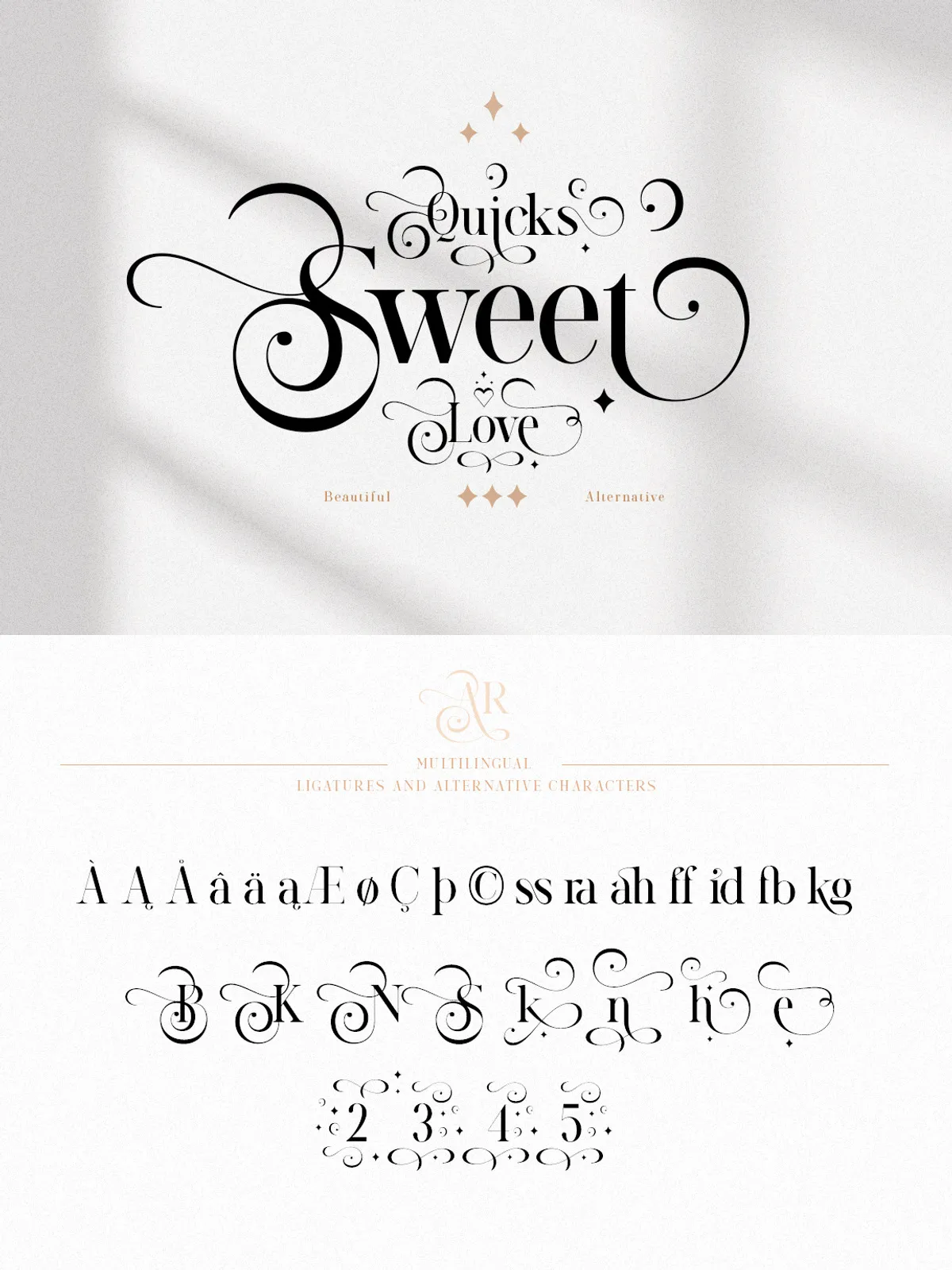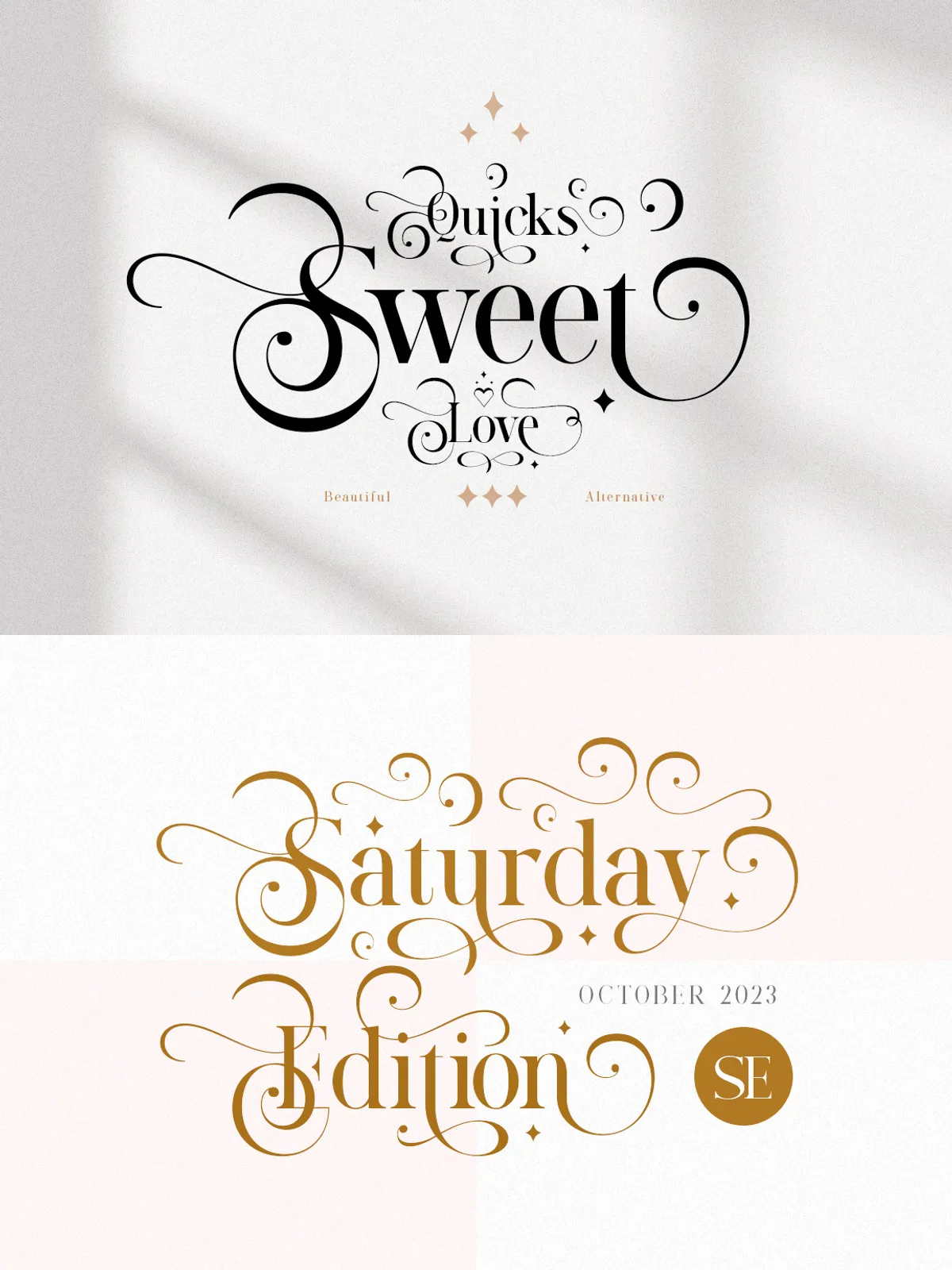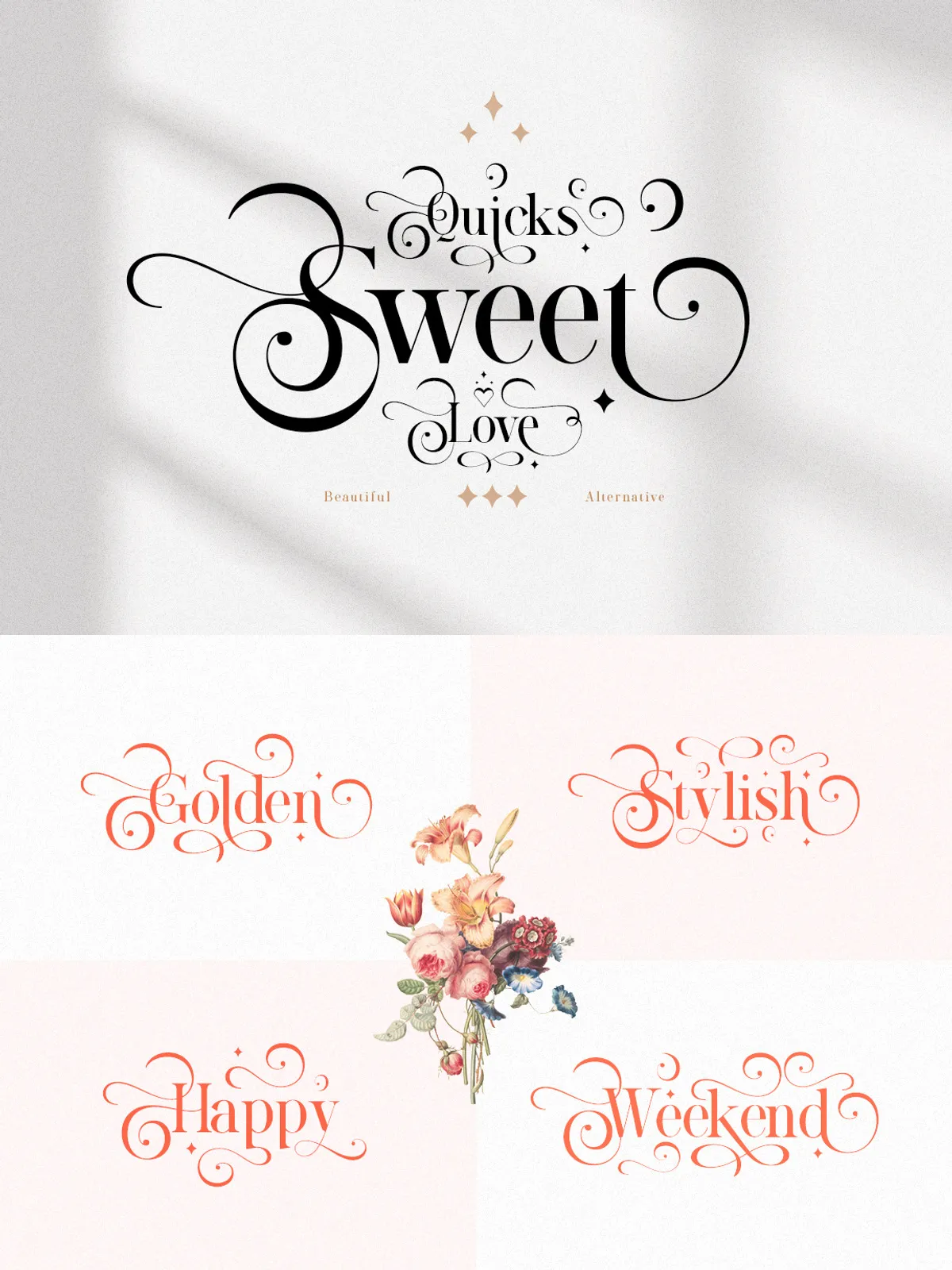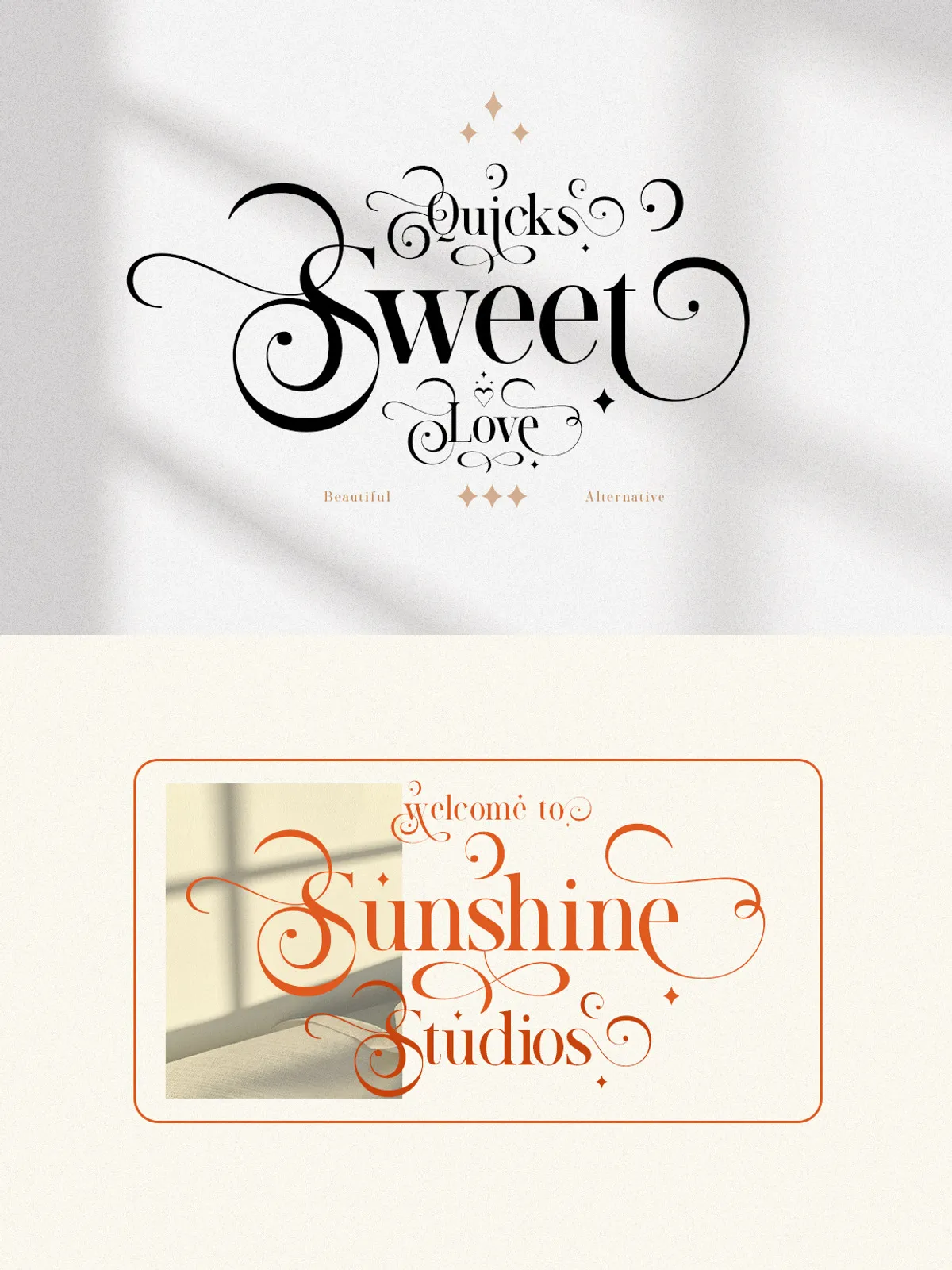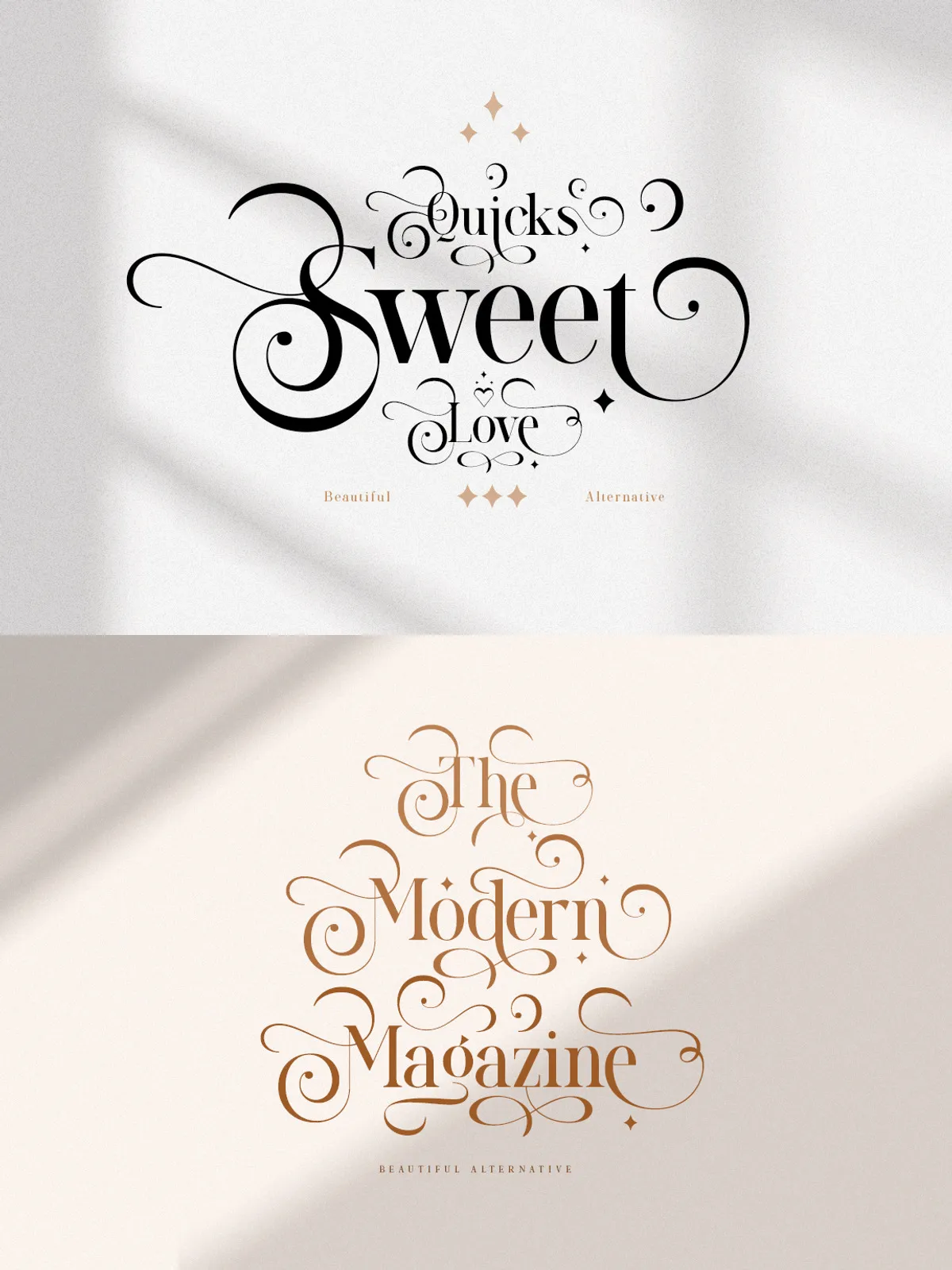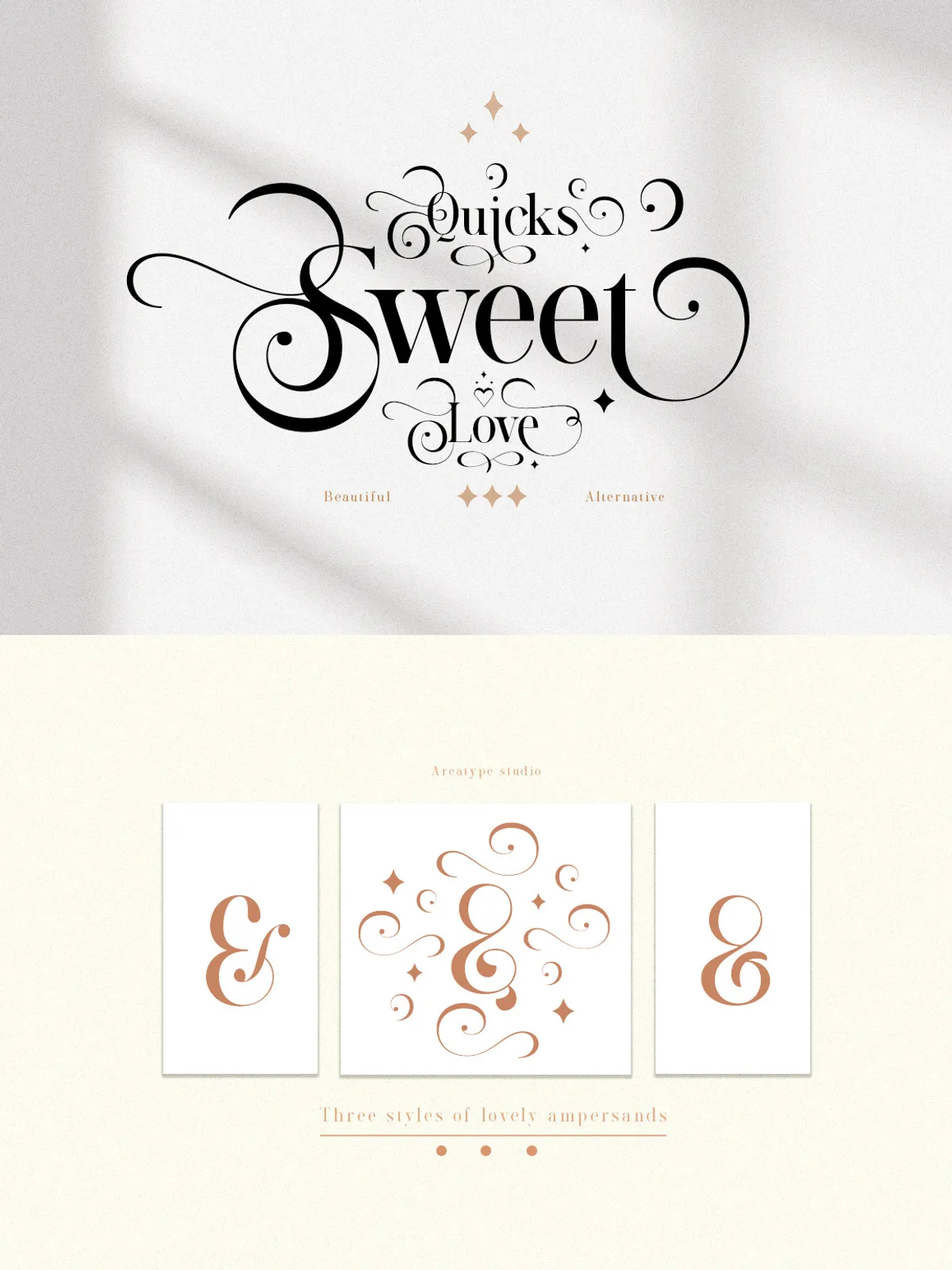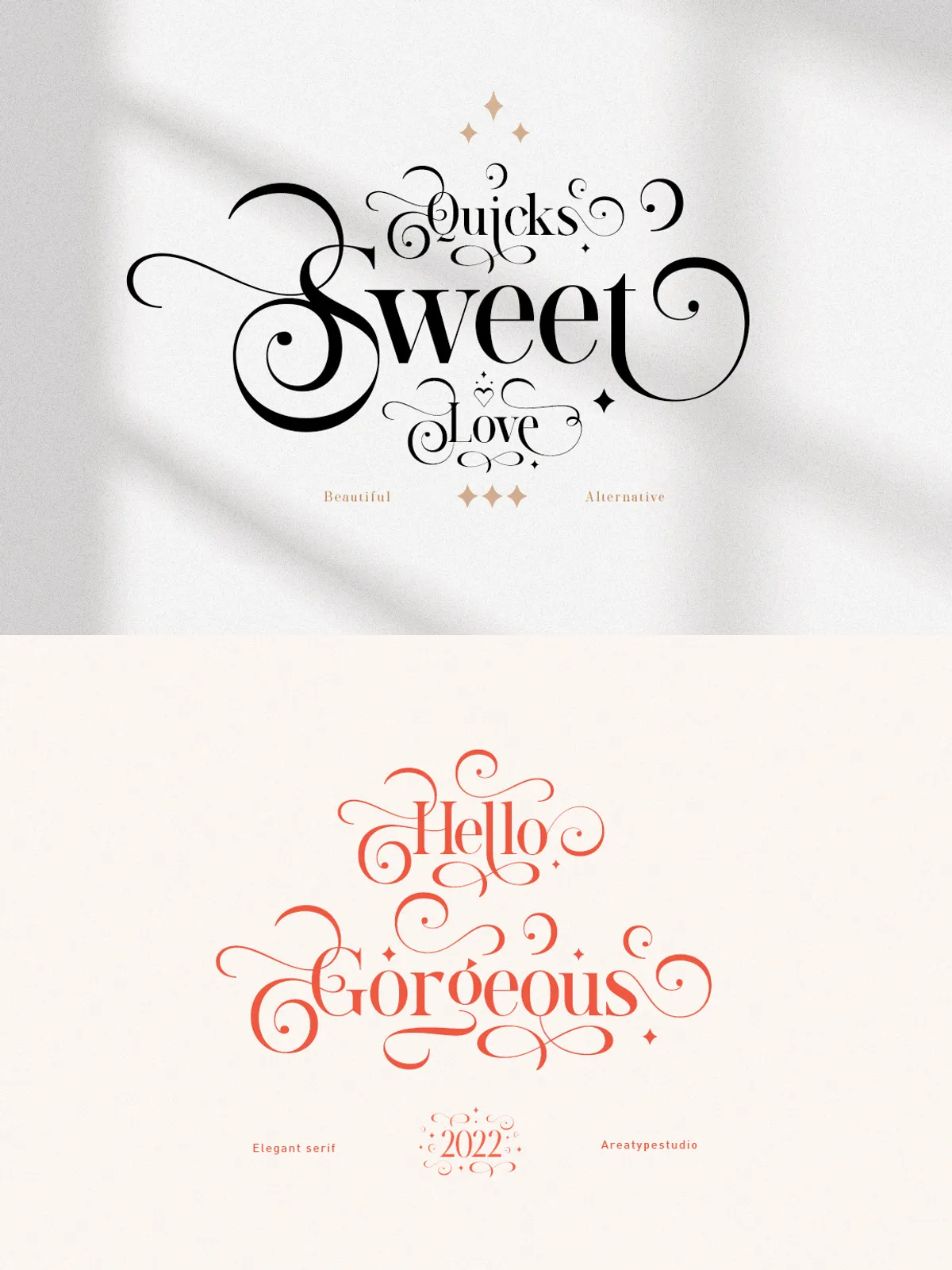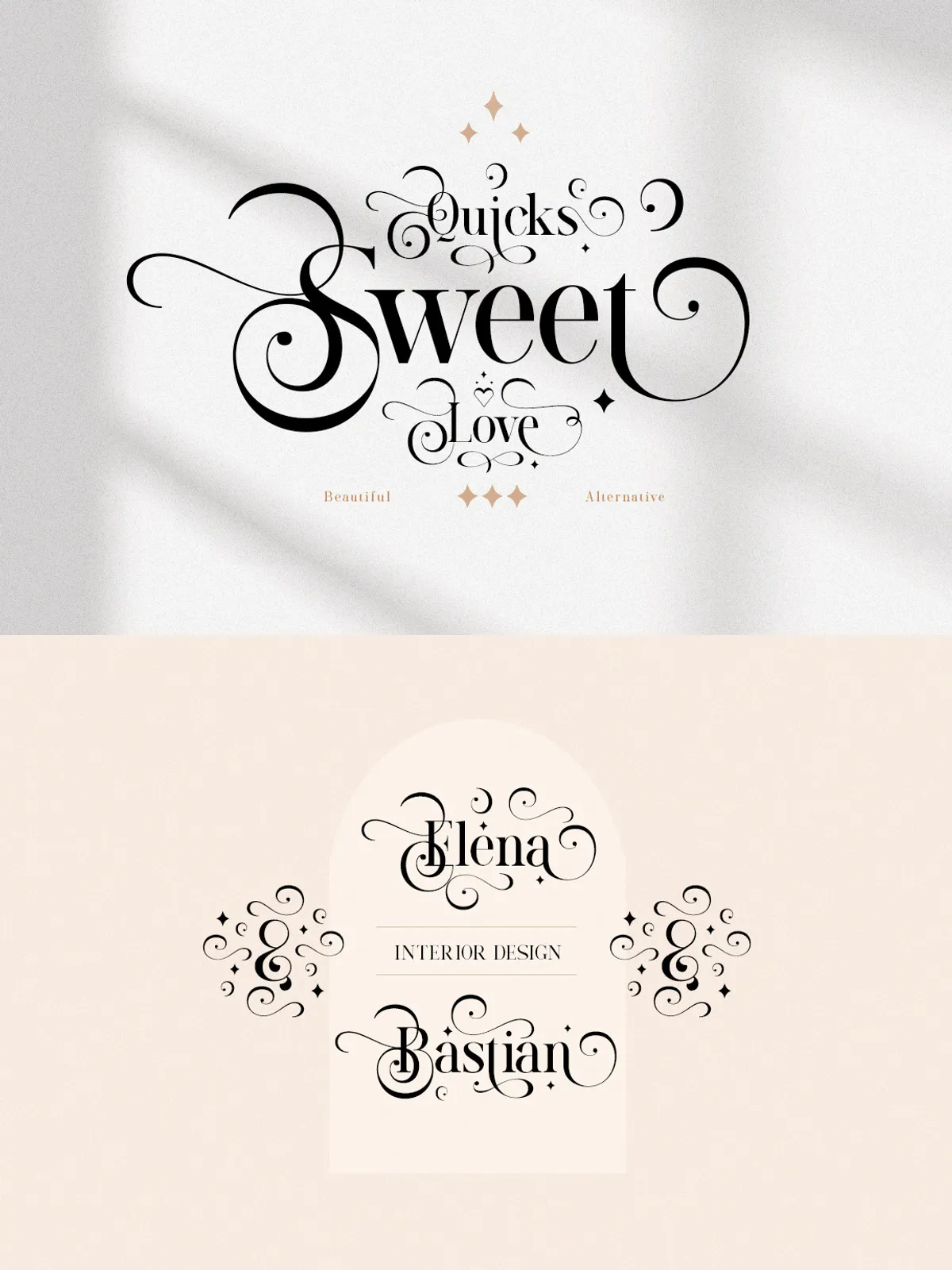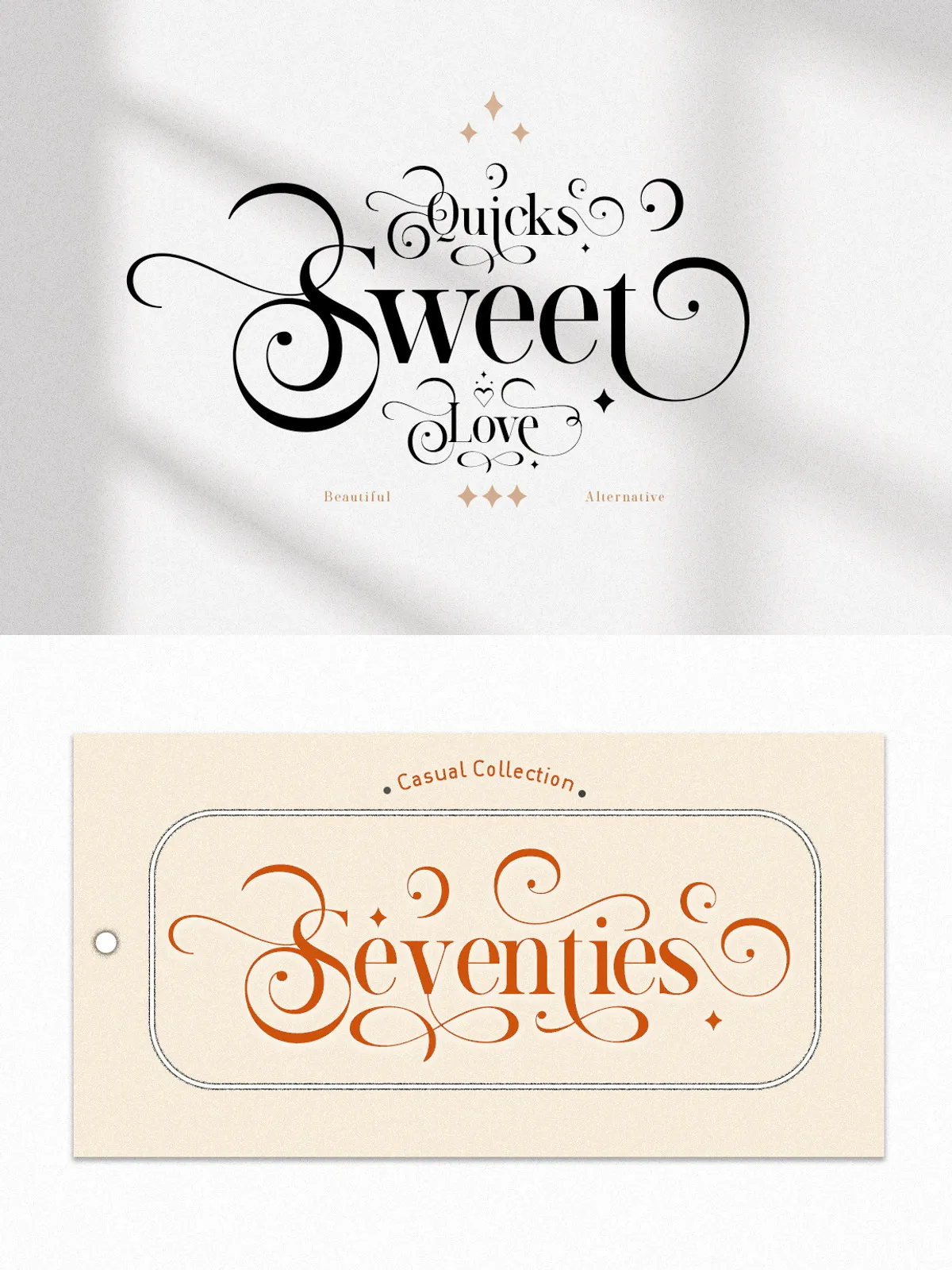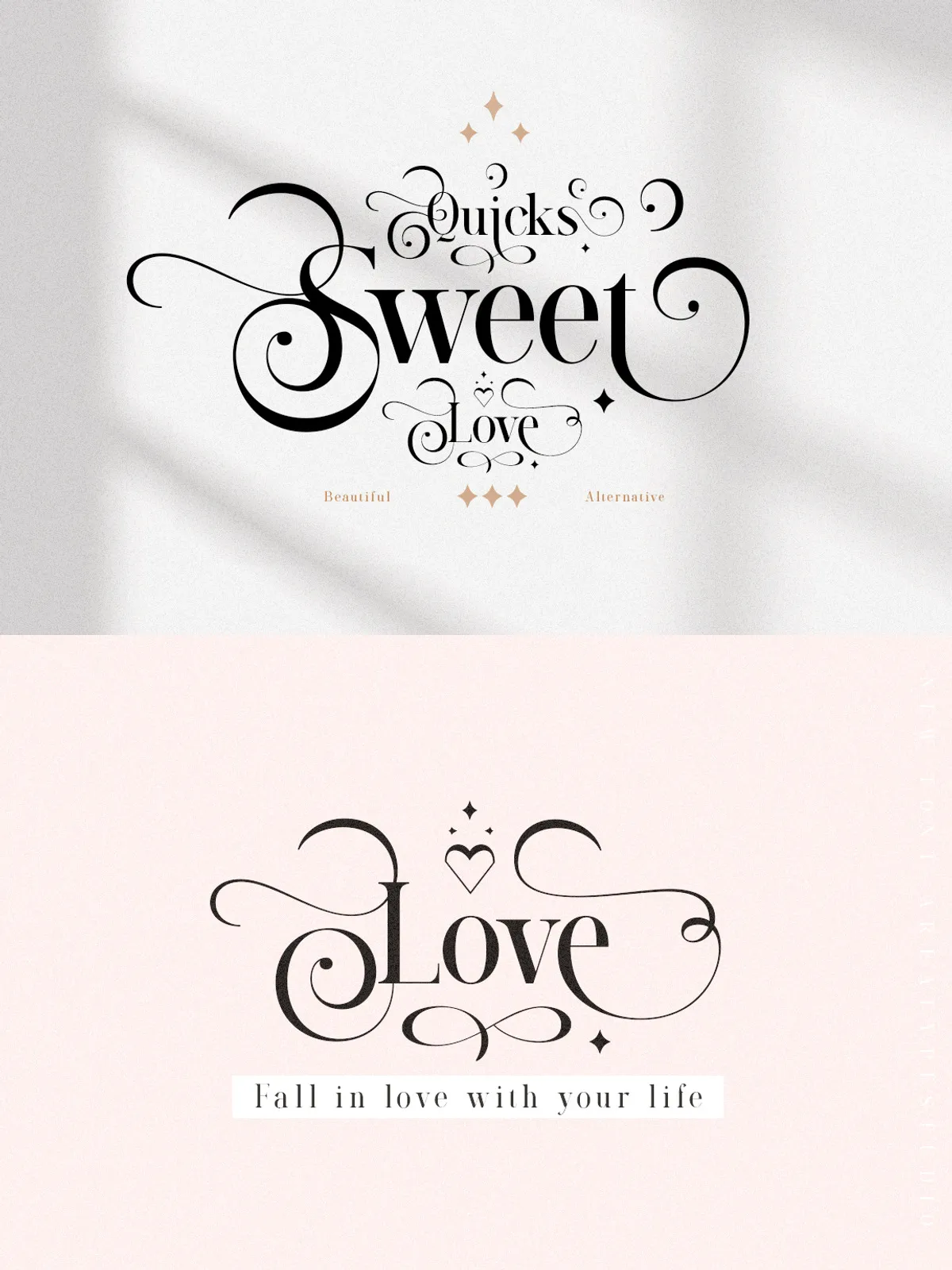
Introducing Quicks Sweet Love — a delightfully versatile font that brings warmth, charm, and artistic flair to every typographic project. More than just a typeface, this handcrafted design tells a story: one of love, creativity, and refined taste. Whether you’re crafting heartfelt wedding invitations, styling editorial covers for high-end fashion magazines, designing a boutique brand identity, or creating eye-catching posters, Quicks Sweet Love adds instant emotional resonance to your visuals.
Its soft curves, flowing letterforms, and subtle flourish details create a sense of intimacy and grace. This is not a font you use because it’s functional — you use it because it feels right. It captures the delicate balance between modern simplicity and classic romance, making it suitable for both contemporary and vintage-inspired designs.
Unleash Creative Freedom: Advanced Typography Features Built-In
Quicks Sweet Love isn’t just beautiful on the surface — it’s packed with professional-grade typographic tools to help you stand out:
- Beautiful Ligatures – Seamless joins between letters that enhance flow and readability while adding a distinctive, hand-crafted look.
- Stylistic Alternates – Easily switch between different versions of letters to customize your text and avoid repetition.
- PUA-Encoded Characters – Access exclusive symbols and decorative glyphs (like floral accents, hearts, and ornamental flourishes) without needing complex font software.
- Numerals & Punctuation – Includes a full set of stylish figures and punctuation marks that match the font’s romantic aesthetic.
These features let you craft truly unique, one-of-a-kind typographic compositions without compromising on professionalism or consistency. Every detail has been carefully designed to elevate your project from good to unforgettable.
Perfect for a Wide Range of Creative Applications
From digital to print, from casual to formal — Quicks Sweet Love adapts to every use case:
• Wedding Invitations & Etiquette
Create breathtaking invitations that set the tone for a memorable celebration. Use the ligatures to add elegance to names, dates, and vows. The soft style gives a timeless feel while feeling fresh and modern.
• Magazine & Editorial Layouts
Design expressive headlines, pull quotes, and photo captions that breathe emotion. Whether it’s a bridal feature, a love story, or a lifestyle editorial, this font draws readers in.
• Branding & Logo Design
Build namesake identities for florists, boutiques, cafes, wedding planners, or beauty studios. Its romantic personality reinforces your brand’s values and helps customers connect emotionally.
• Poster & Event Graphics
Use this font in concert posters, art exhibitions, or romantic film promotions. Its strong visual presence ensures instant recognition and lasting impact.
• Social Media & Digital Campaigns
Enhance Instagram posts, Pinterest visuals, email newsletters, and digital ads with a personal, heartfelt aesthetic that resonates across platforms.
• Handmade & Craft Projects
Perfect for digital scrapbooking, printable planners, DIY stationery, and printable art — just export your design, print it, and bring it to life.